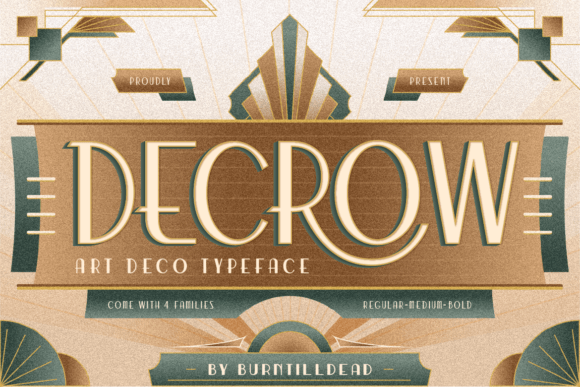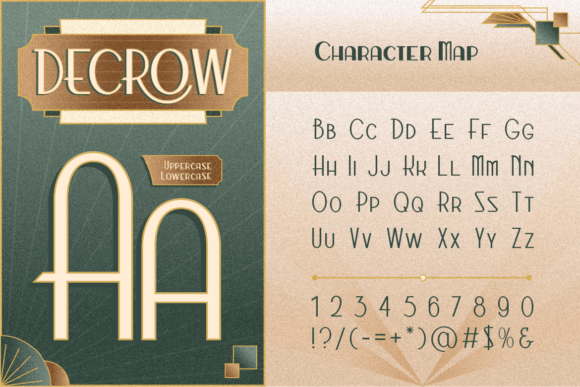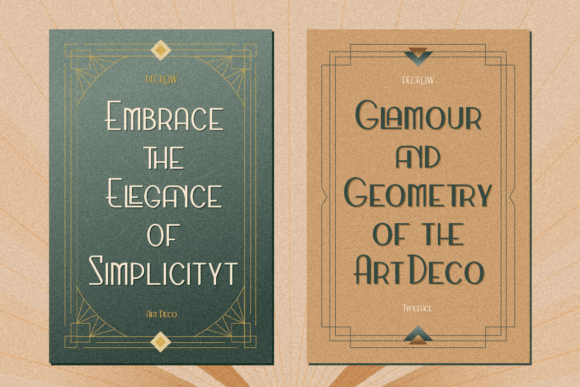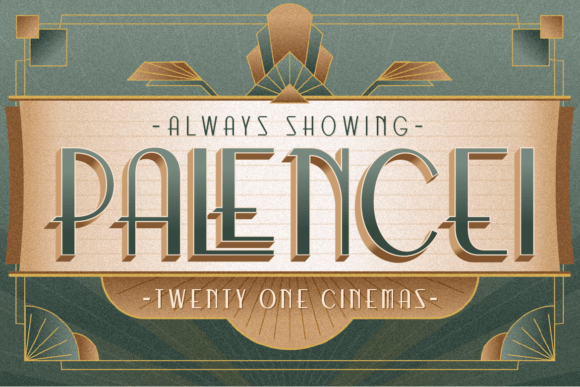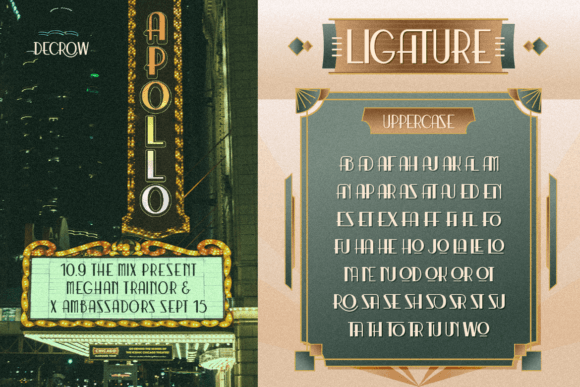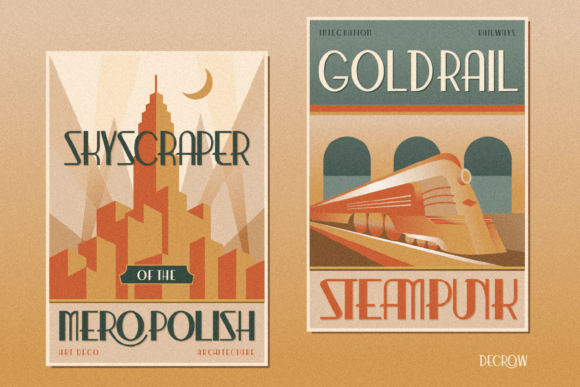
Discover the Timeless Charm of Art Deco with Decrow Font
Step into the opulent world of 1920s and 1930s Art Deco, where glamour and modernity reign supreme. Inspired by the era’s captivating style, Decrow Font brings the essence of Art Deco to your designs, blending vintage charm with contemporary flair. This stunning font is characterized by clean lines, symmetrical patterns, and precision, making it perfect for designers and crafters seeking to add a touch of elegance to their projects.
The Art Deco Revival
Art Deco, short for Arts Décoratifs, is a visual arts style that emerged in the 1920s and flourished until the 1940s. It’s a style that celebrates modernity, progress, and luxury, often featuring geometric shapes, metallic materials, and ornate decorations. Decrow Font is a beautiful representation of this iconic style, distilled into a versatile and modern typeface.
Clean Lines, Symmetrical Patterns, and Precision
Decrow Font boasts clean lines, symmetrical patterns, and precision, making it a true embodiment of Art Deco’s design principles. The font’s boldness and glamour evoke the era’s sense of modernity and progress, while its elegant simplicity ensures it remains timeless and versatile. Whether you’re designing a vintage-inspired project or a contemporary brand identity, Decrow Font fits seamlessly into both worlds.
Three Styles to Suit Your Design Needs
Decrow Font comes in three distinct styles: Bold, Regular, and Medium. Each style has been carefully crafted to capture the essence of Art Deco, with a focus on elegance, simplicity, and geometry. The bold style is perfect for headlines and titles, while the regular and medium styles are ideal for body text and supporting copy. This versatility makes Decrow Font an excellent choice for a wide range of design projects.
Ideal for Fashion, Jewelry, and Web Projects
Decrow Font is particularly well-suited for designs that require a touch of luxury and sophistication. Fashion brands, jewelry designers, and web developers will love the font’s glamorous and modern aesthetic. Use Decrow Font to create stunning headlines, logos, and typography that will elevate your brand and leave a lasting impression on your audience.
Key Features of Decrow Font
- Inspired by 1920s and 1930s Art Deco style
- Characterized by clean lines, symmetrical patterns, and precision
- Comes in three styles: Bold, Regular, and Medium
- Perfect for headlines, logos, and typography
- Ideal for fashion, jewelry, and web projects
- Embodies the elegance of simplicity, glamour, and geometry
Why Choose Decrow Font?
Decrow Font offers a unique combination of vintage charm and modern versatility, making it an excellent addition to any designer’s toolkit. With its Art Deco inspiration, clean lines, and symmetrical patterns, Decrow Font is sure to add a touch of sophistication and glamour to your designs. Whether you’re working on a luxury brand identity, a fashion magazine, or a website, Decrow Font is the perfect choice for designers and crafters seeking to create something truly special.
Decrow Font is a stunning typeface that embodies the timeless charm of Art Deco, with its clean lines, symmetrical patterns, and precision. With three styles to choose from and a wide range of design applications, Decrow Font is an excellent choice for designers and crafters seeking to add a touch of elegance and sophistication to their projects. Discover the beauty of Art Deco with Decrow Font and elevate your designs to new heights.